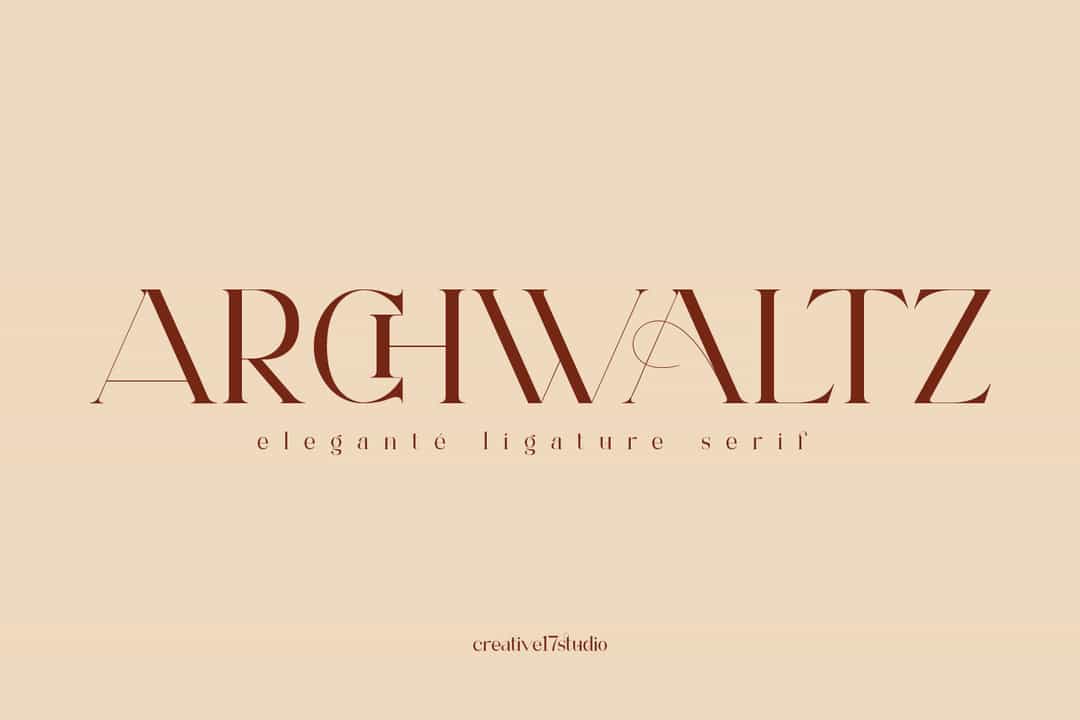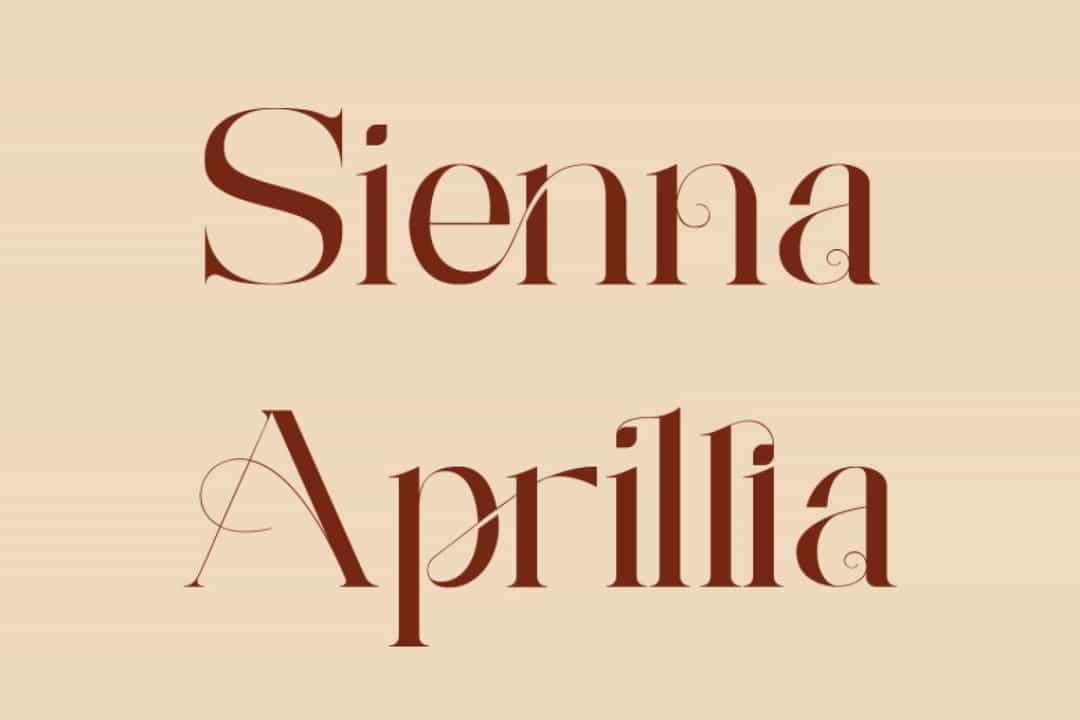
Archwaltza is a luxurious yet elegant serif ligature typeface. The inspiration for Archwaltz comes from the word elegant; therefore it can be described as a typeface which stands out among others and gives off an exquisite modern vibe. Plus, there are so many charming Ligatures you won’t want to lose it.